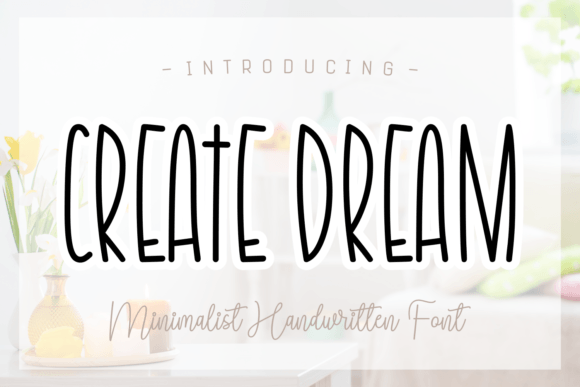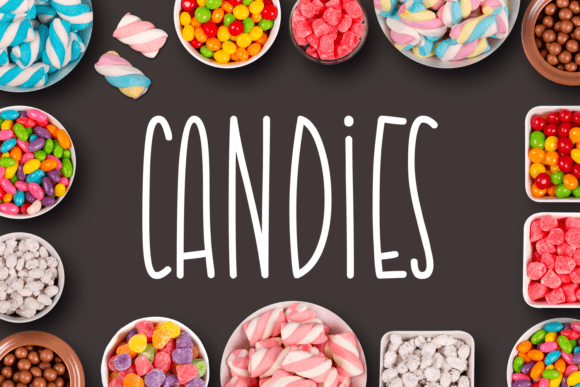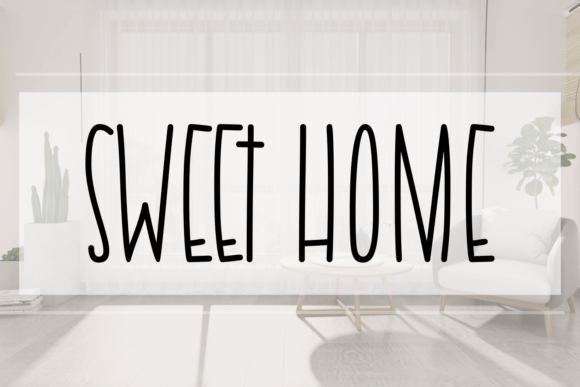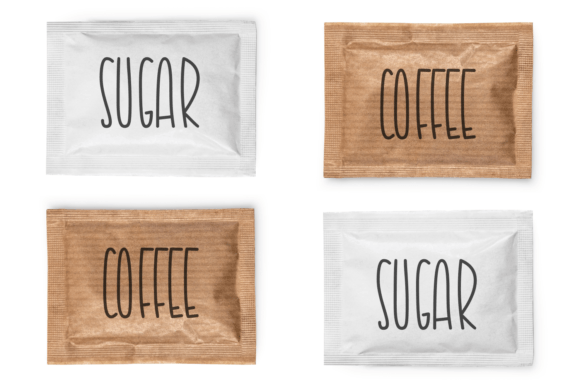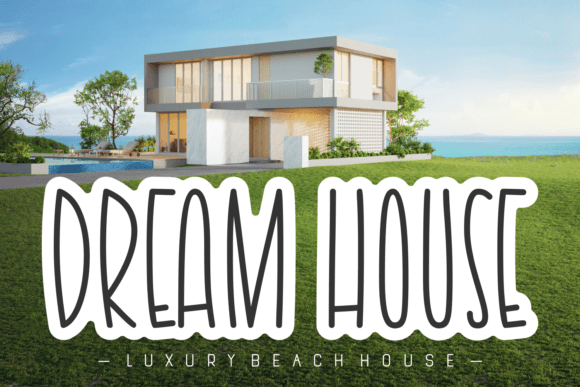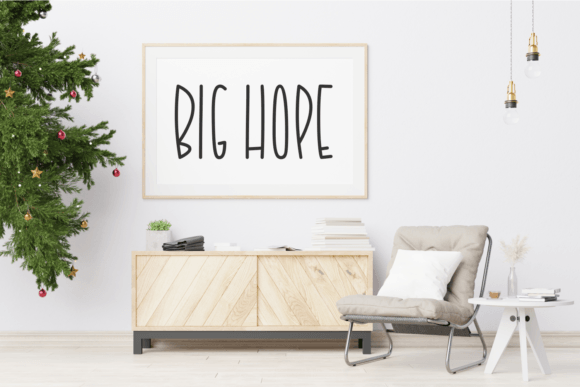
Create Dream Font
Create Dream Font Download – Fresh Casual Handwritten Script
The Create Dream Font download is a modern handwritten script that blends a casual style with a fresh and minimalist touch. With its clean strokes and smooth flow, this font is perfect for a variety of creative projects. Because of its versatile design, it adapts equally well to print, digital, and branding uses.
Fresh and Casual Handwritten Style
Create Dream features balanced curves and simple strokes that create a clean, approachable look. As a result, it gives text a stylish yet friendly vibe. In addition, its minimalism ensures that your designs look professional and contemporary.
Perfect for Invitations and Stationery
From elegant invitations to everyday notes, this font brings charm and clarity to your words. It makes text appear both casual and refined. Therefore, it is an excellent choice for event stationery and personal projects.
Create Dream Font Download for Magazines and Book Covers
The Create Dream Font download also works beautifully for book covers, magazines, and posters. Its smooth handwritten look makes it appealing for creative editorial projects while keeping the design simple and engaging.
Versatility Across Creative Projects
From social media graphics and DIY crafts to branding and packaging, this font adapts seamlessly. In addition, its fresh, minimalist style makes it suitable for both formal and casual settings.
Readability and Balanced Design
Some handwritten fonts may compromise readability for decoration, but Create Dream maintains a strong balance. As a result, it is effective for large titles, smaller captions, and detailed layouts.
Why Add This Script Typeface to Your Collection?
The Create DreamFont download is versatile, modern, and easy to use. In other words, it fits invitations, book covers, posters, magazines, and branding projects alike. Finally, it is a handwritten script that adds freshness, creativity, and timeless casual style to every design.